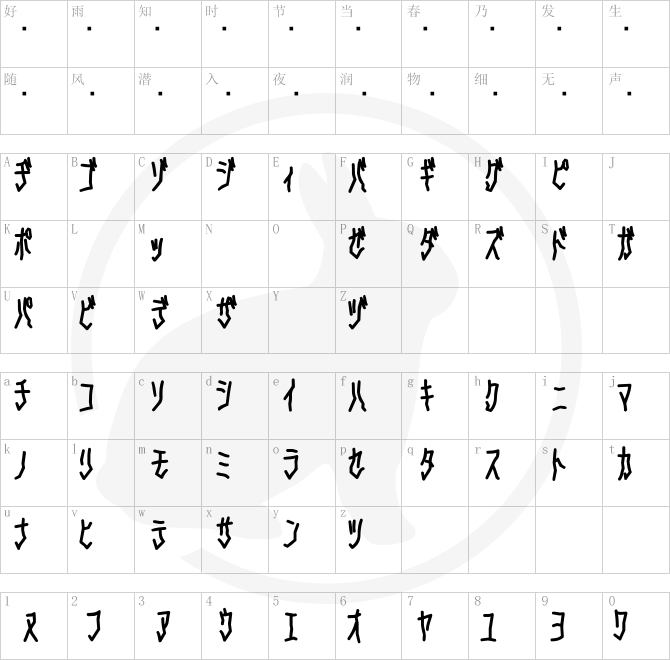
- Font Name:D3 Skullism Katakana Bold
D3-Skullism-Katakana-Bold.ttf is a very beautiful artistic font, D3-Skullism-Katakana-Bold.ttf is widely used in the design and printing of various books and pictures,D3-Skullism-Katakana-Bold.ttf has a strong visual impact,D3-Skullism-Katakana-Bold.ttf is a commonly used font in newspapers, magazines and books, and is used in posters, e-commerce Poster design, store design, logo design, font design and other fields.D3-Skullism-Katakana-Bold.